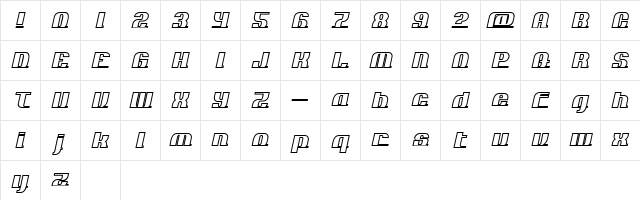
AddLoops is built around its visual character rather than neutral utility - its distinctive forms are designed to make an impression at display sizes.
Font Pairing: Pair with a clean neutral sans-serif for body copy to let AddLoops's character lead without overwhelming the composition.
Pro Tip: Use AddLoops exclusively at display sizes - it was designed to be seen, not read at length. Let a neutral companion handle body copy.